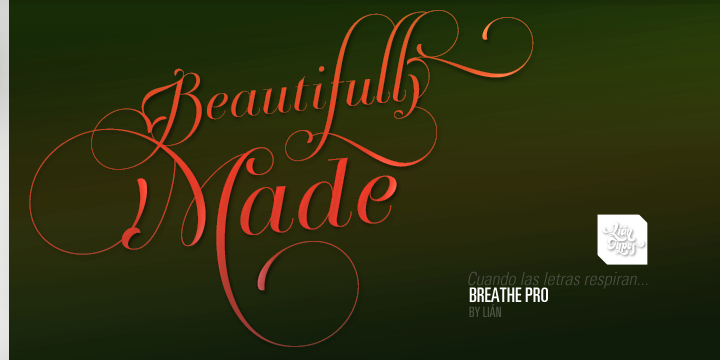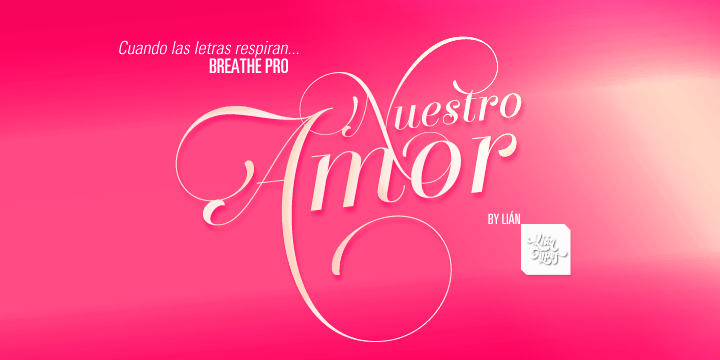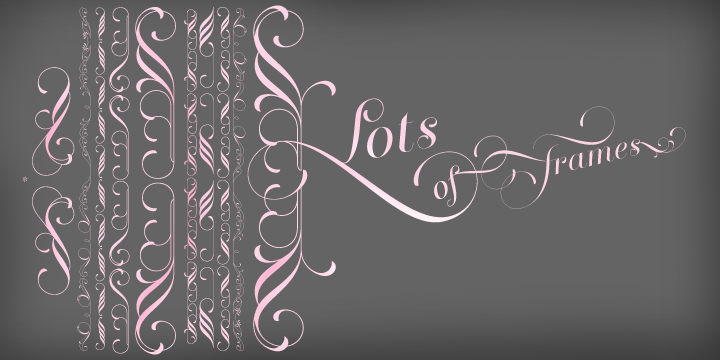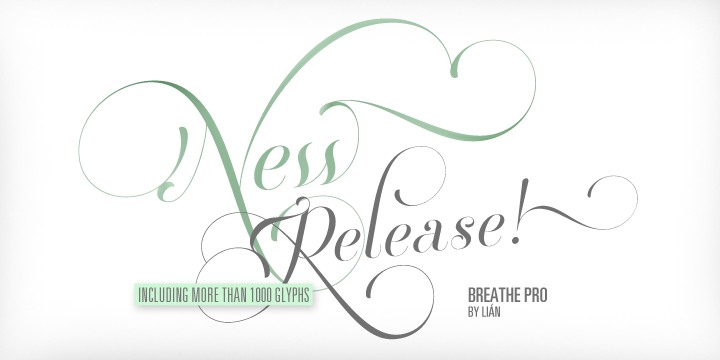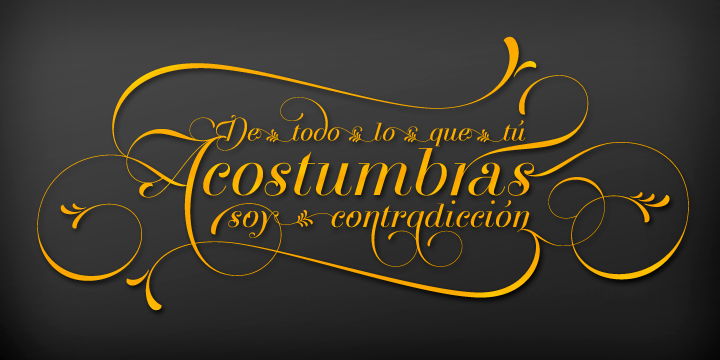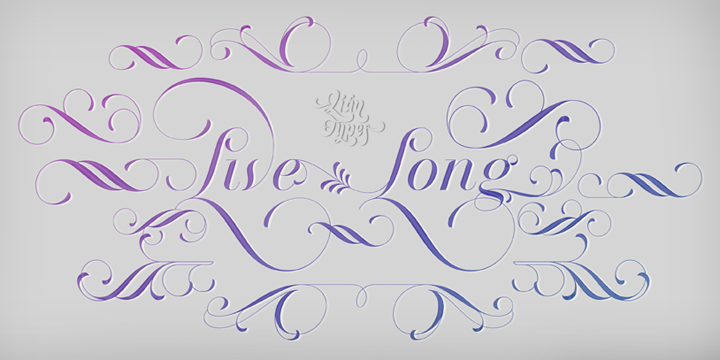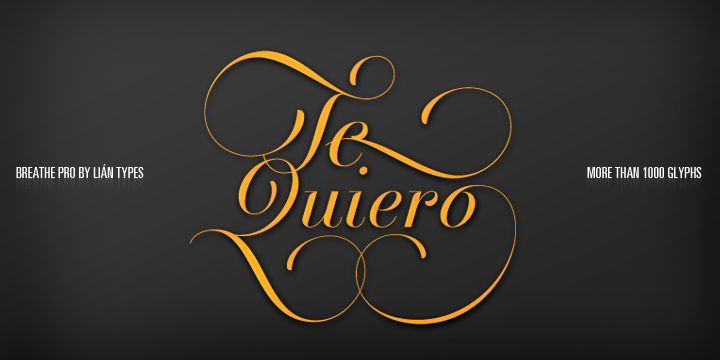
Breathe
by Lián Types
Breathe Font Family was designed by Maximiliano R. Sproviero and published by Lián Types. Breathe contains 2 styles.
About Breathe Font Family
ATTENTION COSTUMERS! A new version of this font was released in 2019. Take a look: Breathe Neue Reaching a total of more than 1000 glyphs, Breathe Pro is Maximiliano R. Sproviero’s gift of the year. The aim of the designer was once more to give the user the chance to play and travel from very formal and conservative letterforms to the amazing world of swashes and flourishes. Possibilities of alternating and ligating characters in this font are absolutely fantastic. After his last creation, Parfait Script, Lián wanted to make a more universal font. Delighted by typographic works of Didot and his followers of the beginnings of 1800, Maximiliano R. Sproviero started what became another obsessive project, which is now named Breathe, “cuando las letras respiran...” what could be translated as “when letters breathe”, due to the feeling that you are reading letters that are alive. Breathe comes in two styles which have a significant difference as regards to the quantity of glyphs available inside. If you want to get the most complete style, with over 1000 glyphs, (including contextual alternates, stylistic alternates, swashes, terminal forms, titling alternates, historical forms, stylistic sets, standard ligatures, stylistic ligatures, decorative ligatures and frames) then your choice should be Breathe Pro. On the other hand, if you are interested in having a less decorative font with the nice touch of Lián’s style, then your choice should be Breathe Standard, a more limited version of Breathe, including terminal forms (leaves) and frames. With Breathe Pro you will surely have fun at the same time you are designing and that is not an unimportant thing. The world of type-designers is growing each year, and the features of Open-Type are letting them think their creations as if they were truly pieces of art. At least, Breathe Pro is inspired in the Art of our predecessors, those who with a pen loaded of ink would decorate each letter, each page in such a lovely way. Yes, -lovely- is the word. We would not have the amazing lettering artists, calligraphers, typographers of nowadays if that -love for letters- had not traveled from generation to generation. Breathe Pro is an example of this love. An example of what Maximiliano R. Sproviero feels about typography and letters. Pssst... Look for more images and the User’s Guide at the gallery section to see it in use! http://origin.myfonts.com/s/aw/original/89/0/46067.pdf
About Lián Types
“As my favorite Argentinian rock singer, Gustavo Cerati, says: Buenos Aires is “La ciudad de la furia” — the city of fury,” Maximiliano Sproviero said of his home, one of the main centers of type and lettering in Latin America, in his Creative Characters interview. “This city has so much to offer, whether at daytime or during the night. It’s always on the move and, if you are susceptible enough, it can fill your mind with ideas.” Maximiliano first discovered his love for typography while studying graphic design at Universidad de Buenos Aires, Argentina. As an innocent font hobby turned to addiction, his type design career matured at an incredibly rapid rate, due much to his fascination with calligraphy. He founded Lián Types in 2008 and it took him only two years thereafter to develop his own approach to the art, mixing his interest in calligraphy with a growing skillfulness in digitizing the most challenging of curves. “The truth is that I’m also doing my best to be a good calligrapher, and I don’t like making fonts which I can’t do myself by hand. My letters are me!” Inspired by many styles of calligraphy, Lián Types is now among the most successful foundries specializing in script fonts and ornamented display type. “Designing script faces is not a game,” he said. “They’re not ‘the easy ones.’ They’re not for beginners, as some may think. A well-made script is like a marvel you just can’t stop staring at.” Maximiliano has won prestigious awards and his fonts have been adopted by some of the best designed publications around. His bestselling typefaces include Selfie, Brand and Heroe. “Like history tells us: the written word can be as precious as any other art work.”